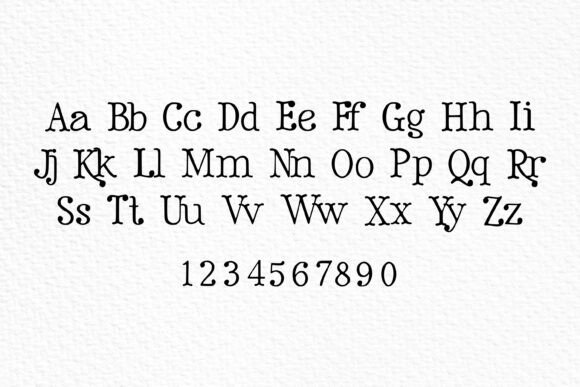
Introduction to Gentle Serif Font
Introducing a captivating font designed to complement a wide range of creative projects.
Whether you seek elegance, modernity, playfulness, or a bold statement, this font adapts effortlessly to your vision Perfect for branding, book covers, posters, packaging, merchandise, and more, it enhances your designs with a unique and polished touch.
Key Features of Gentle Serif Font
Why Choose Gentle Serif Font?
Gentle Serif Font offers exceptional quality and versatility, making it a valuable addition to your design toolkit. Whether you’re creating for personal projects or commercial use, Gentle Serif Font delivers professional results.